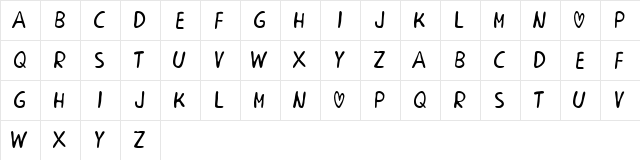
PEACECHILD BETA
Design Context for PEACECHILD Typeface
PEACECHILD has an approachable, lighthearted character — its loose, expressive forms are well-suited to children's content, casual branding, and fun-first design.
Well-suited to food and beverage brands with personality, educational materials, and fun-forward identities.
Font Pairing: Pairs well with a rounded or humanist sans for body copy, maintaining the friendly tone without relying on PEACECHILD to carry extended reading.
Pro Tip: Use PEACECHILD at larger display sizes where its expressive character can land. Pair with a clean, simple sans for body copy to maintain readability.